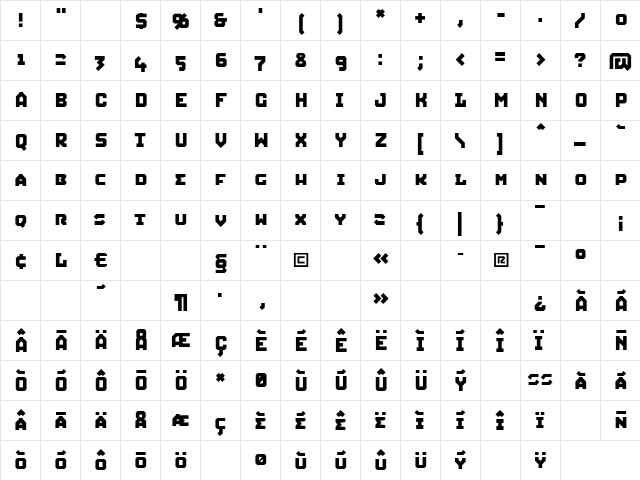
Squid Caps
Design Context for Squid Typeface
Squid is a composed and adaptable typeface that performs quietly and consistently across a wide range of design contexts.